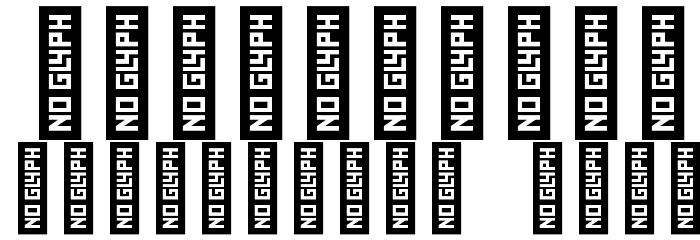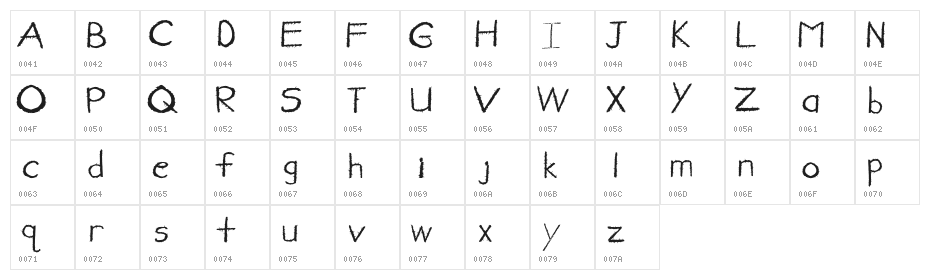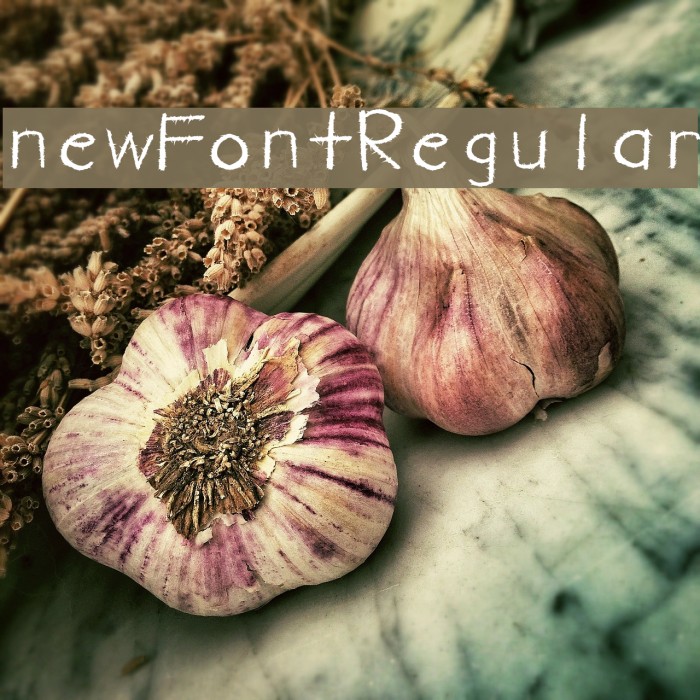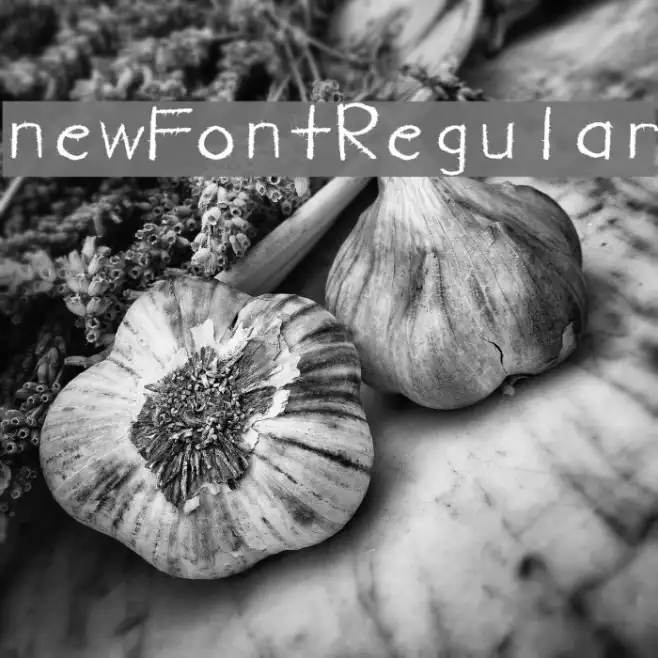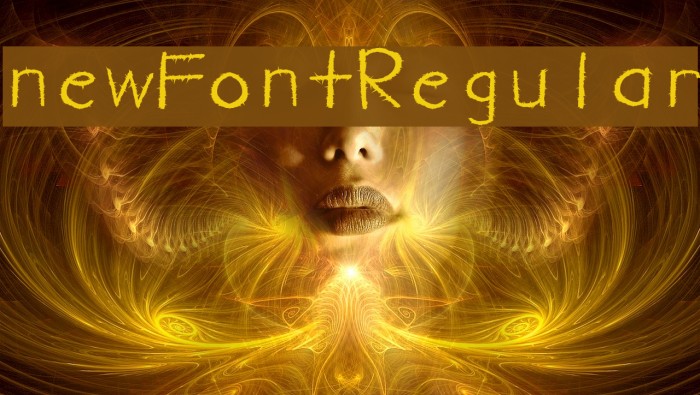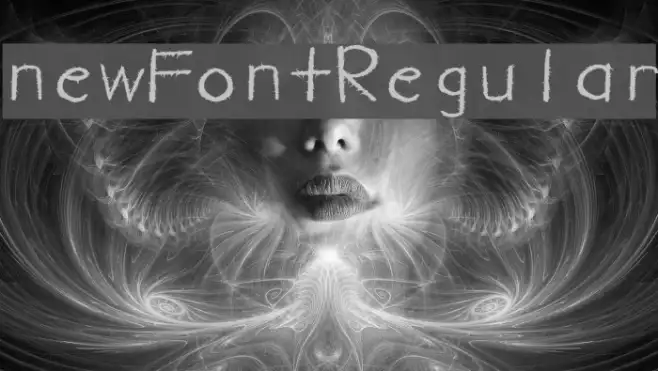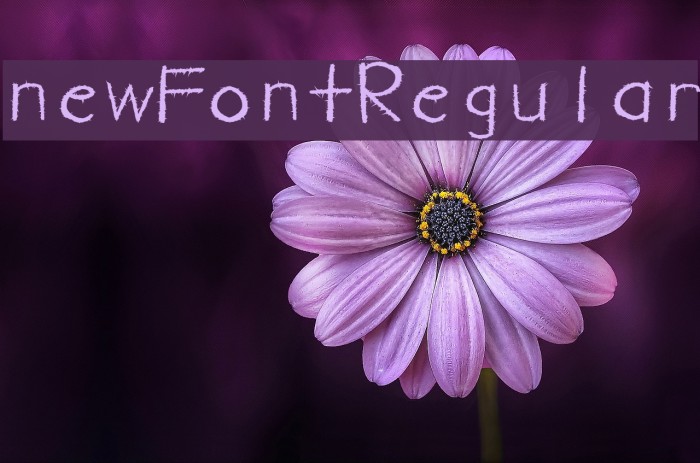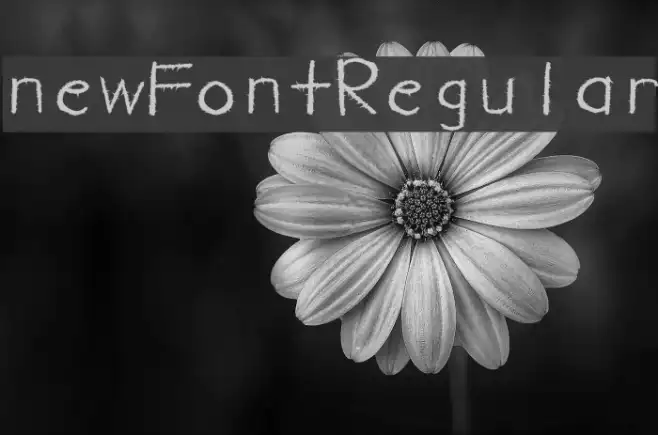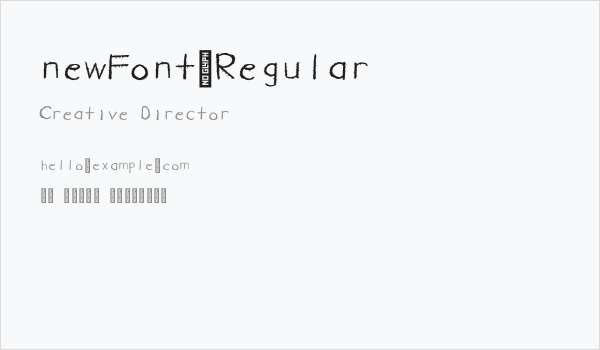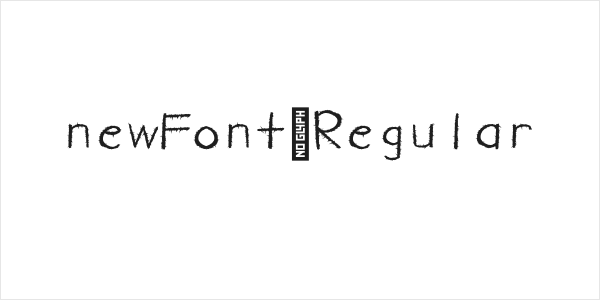
newFont-Regular Font
newFont-Regular Description
This font features a unique, hand-drawn appearance with rough, textured edges that give it a raw and organic feel. The uppercase and lowercase letters maintain a consistent style, with irregular strokes that suggest a sense of movement and spontaneity. The characters are slightly uneven, adding to the handcrafted aesthetic. This font lacks numerical and special character glyphs, focusing solely on alphabetic characters. The overall design is informal and artistic, making it suitable for creative projects that require a personal touch.
| Overall Style | Artistic |
| Use Case | Logos, Creative projects |
| Proposed Projects | Ideal for artistic projects, personal branding, creative posters, and informal invitations. |